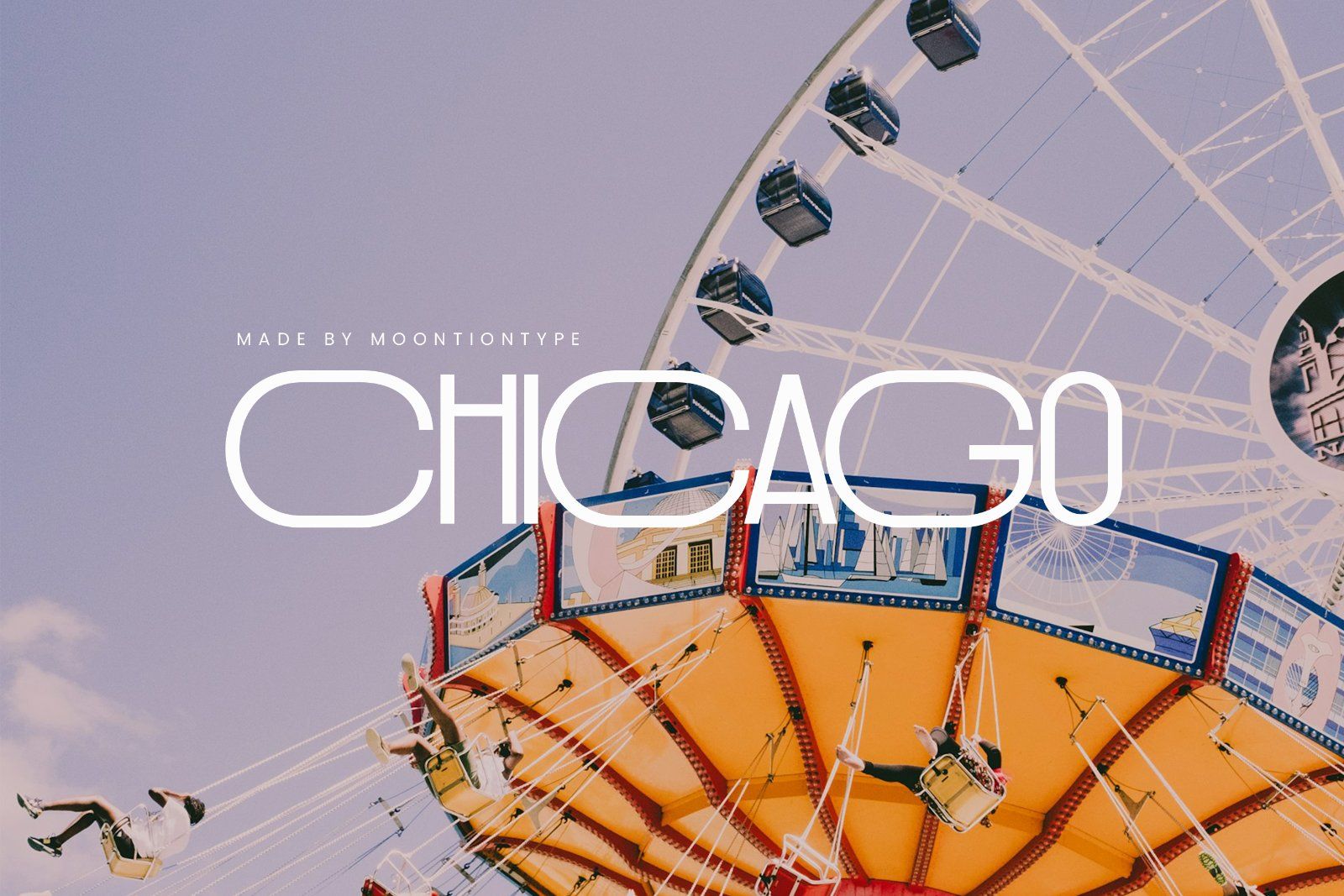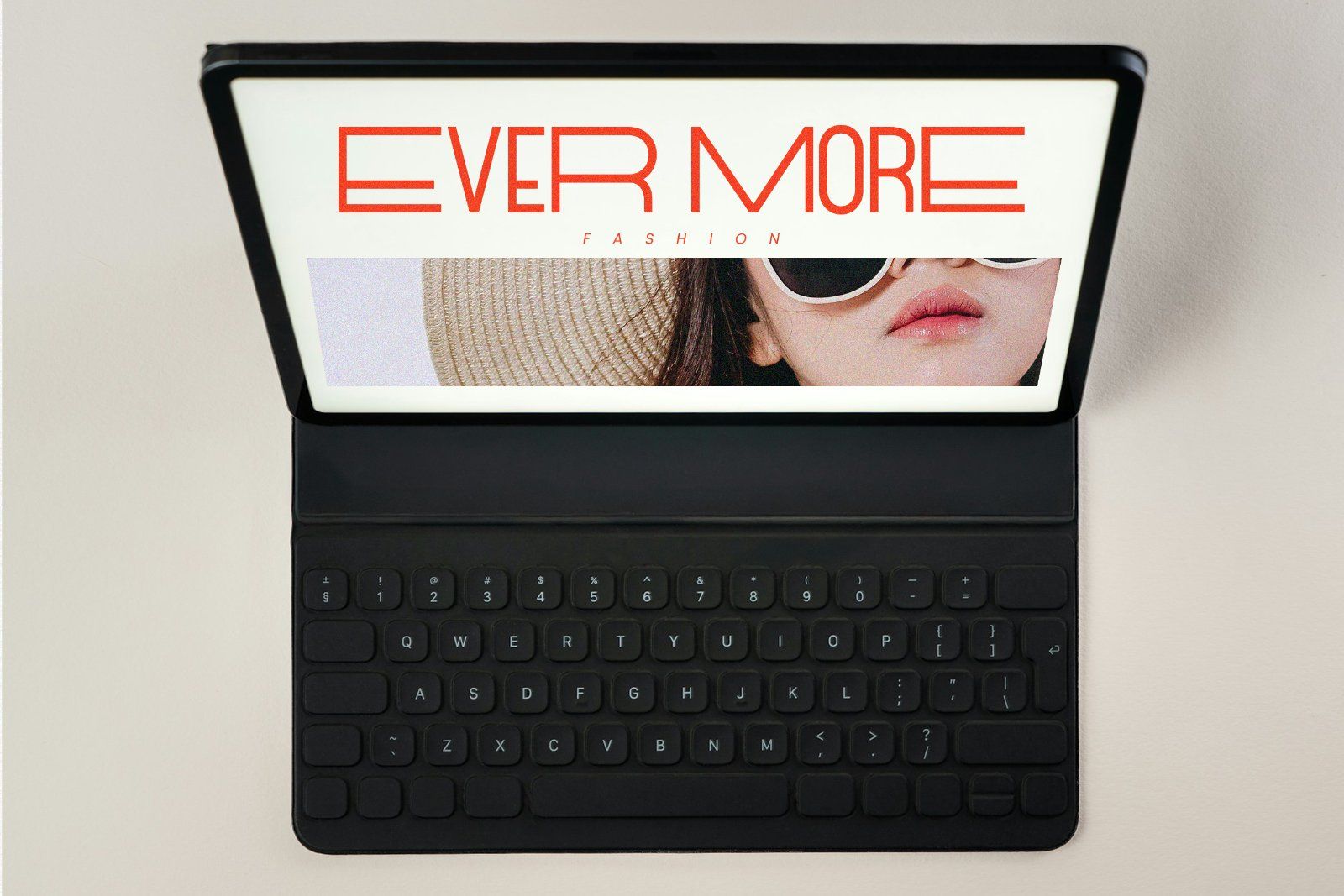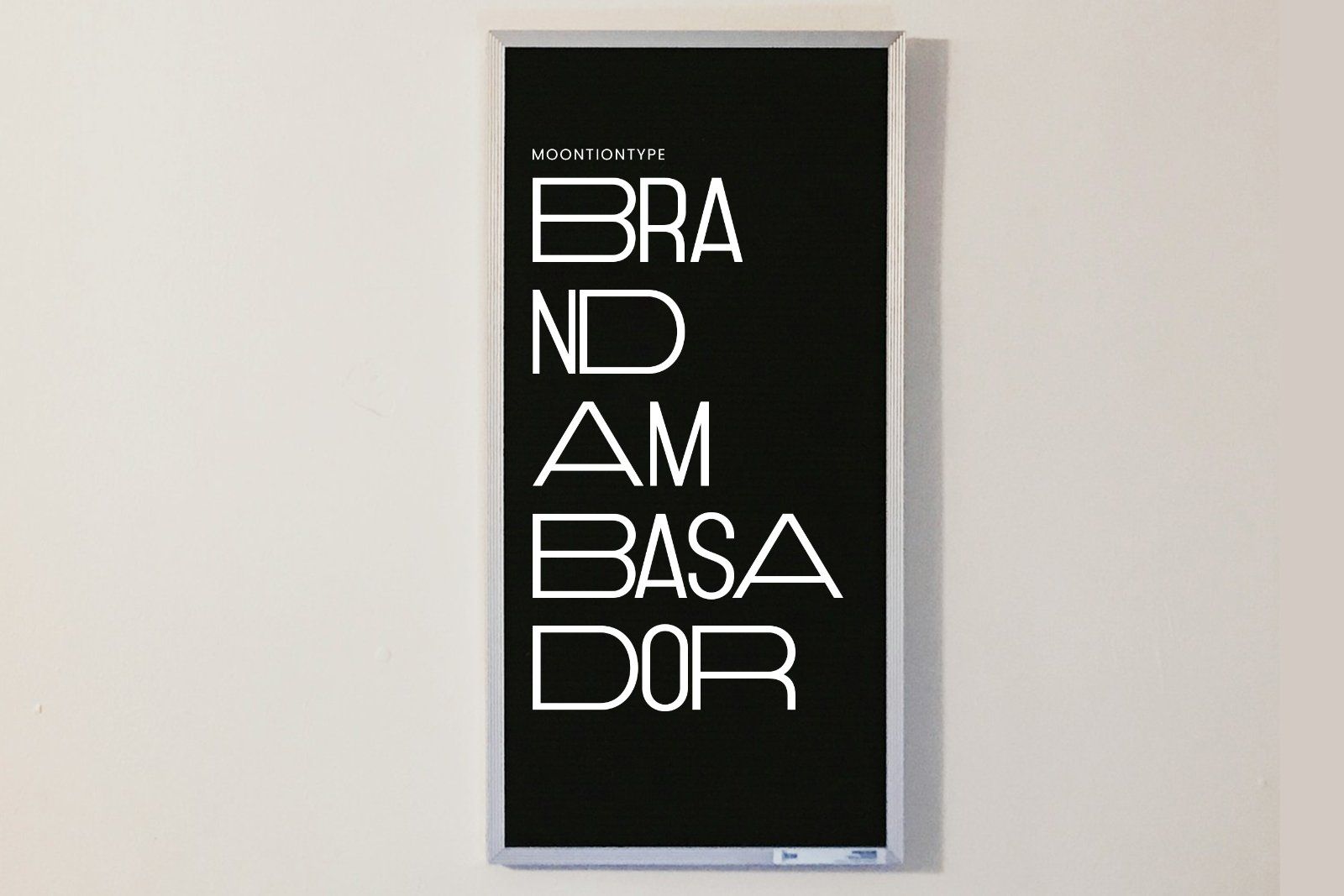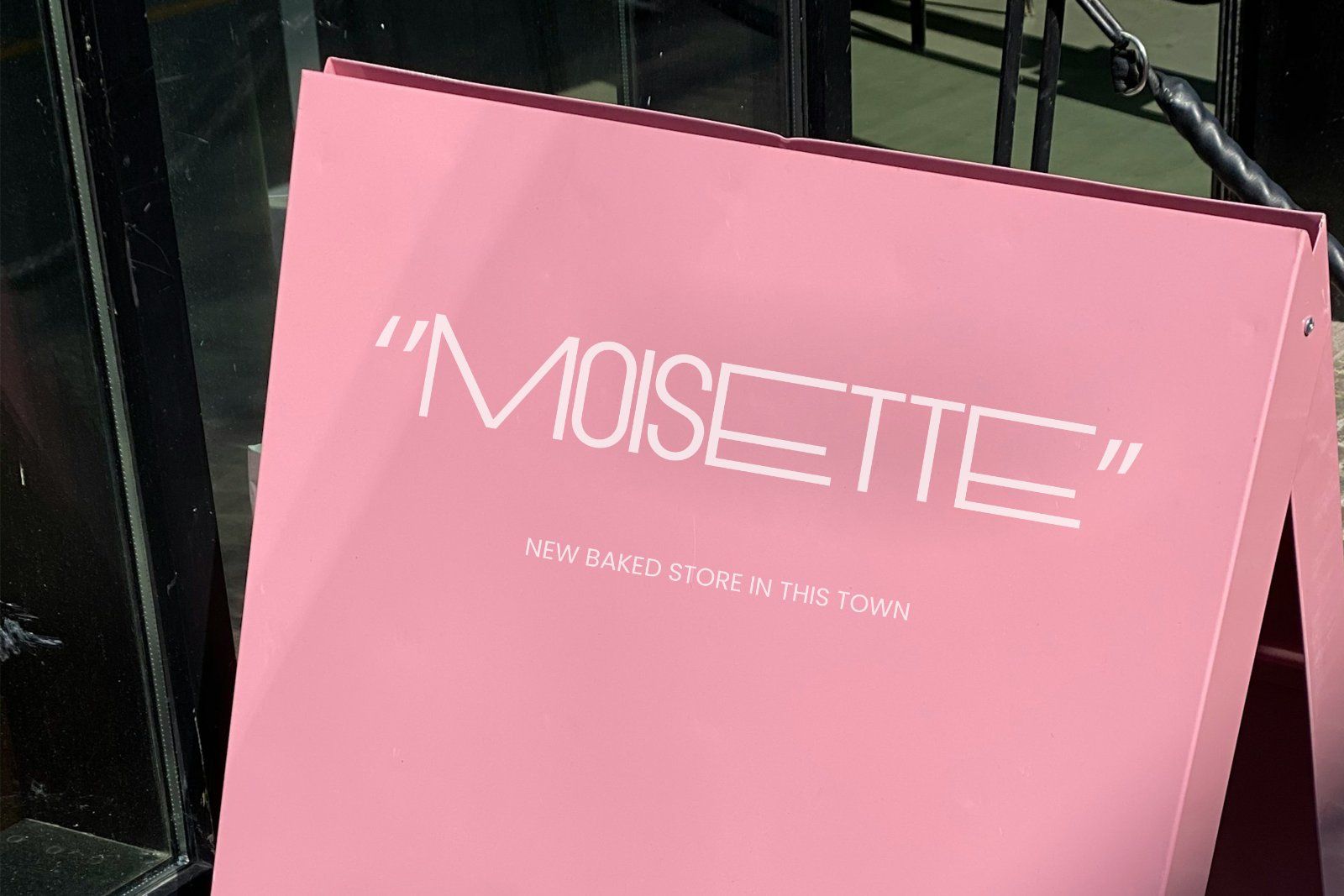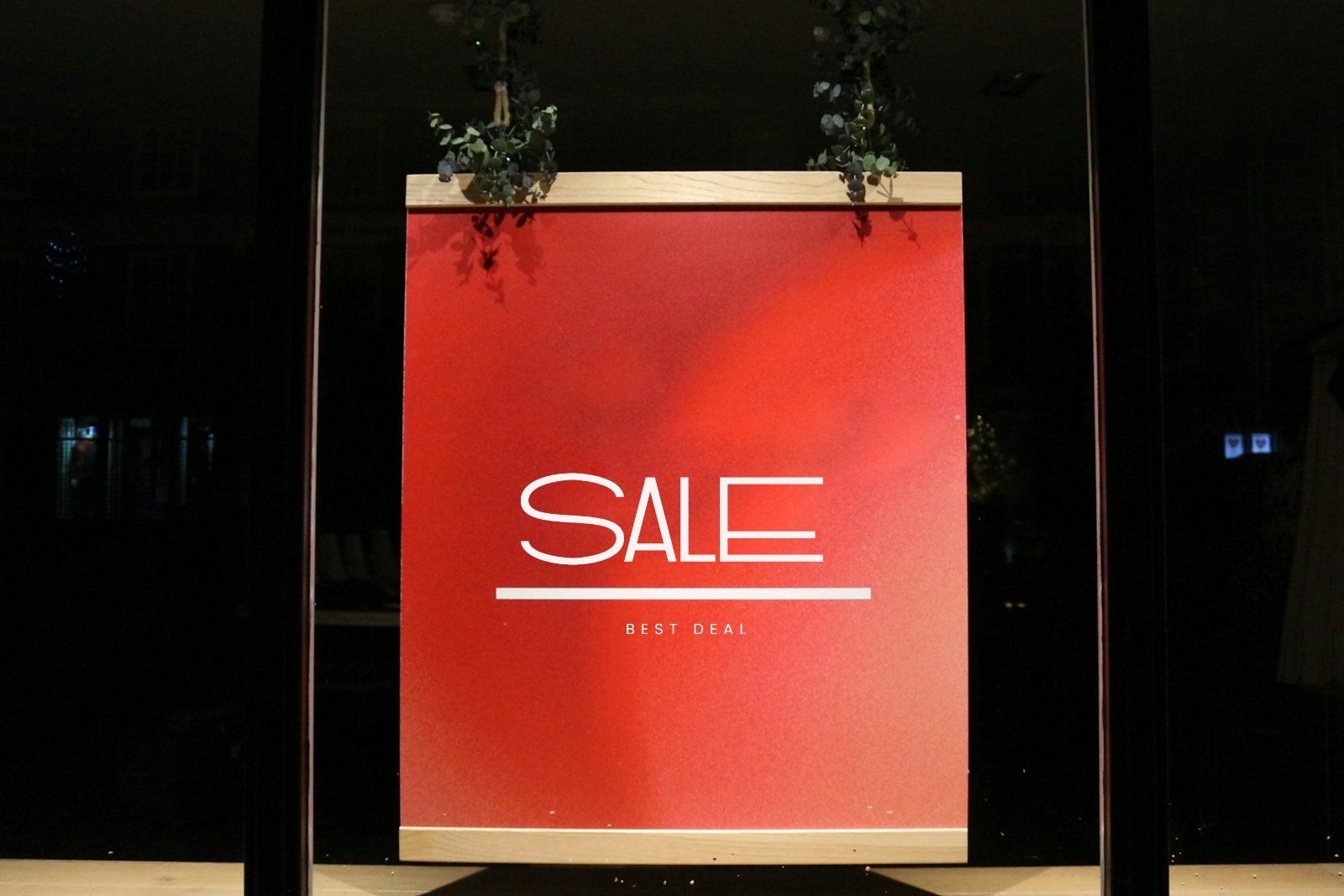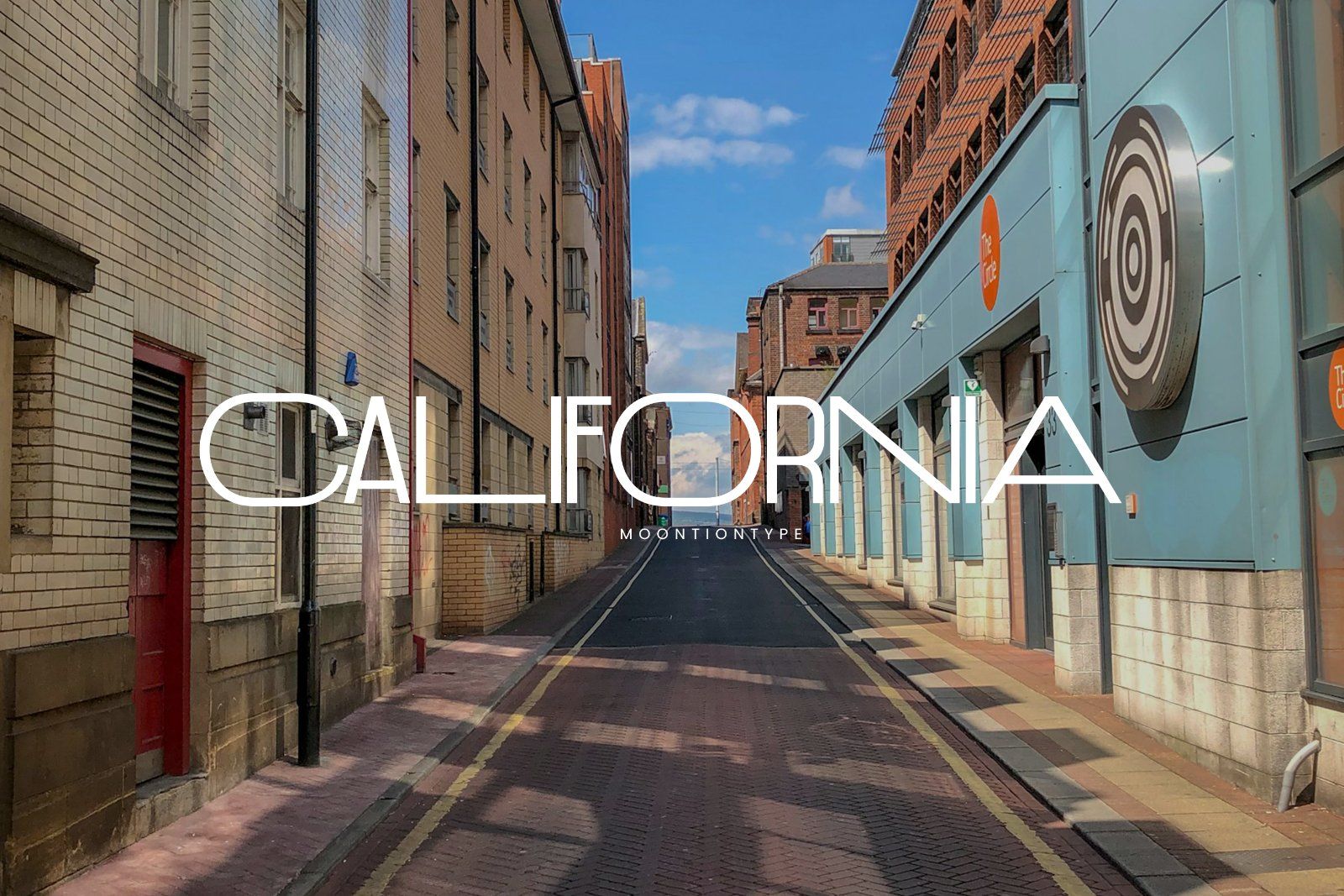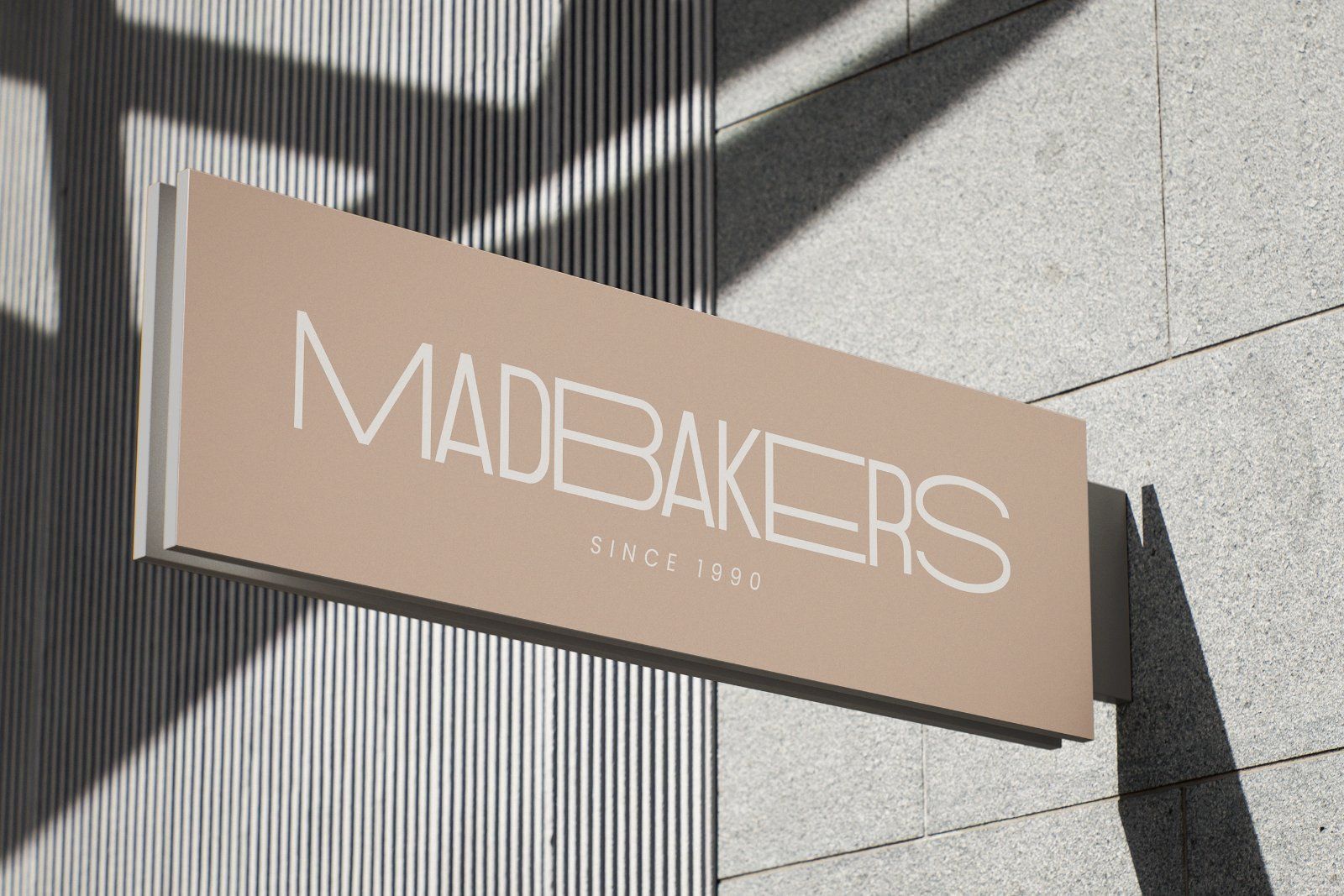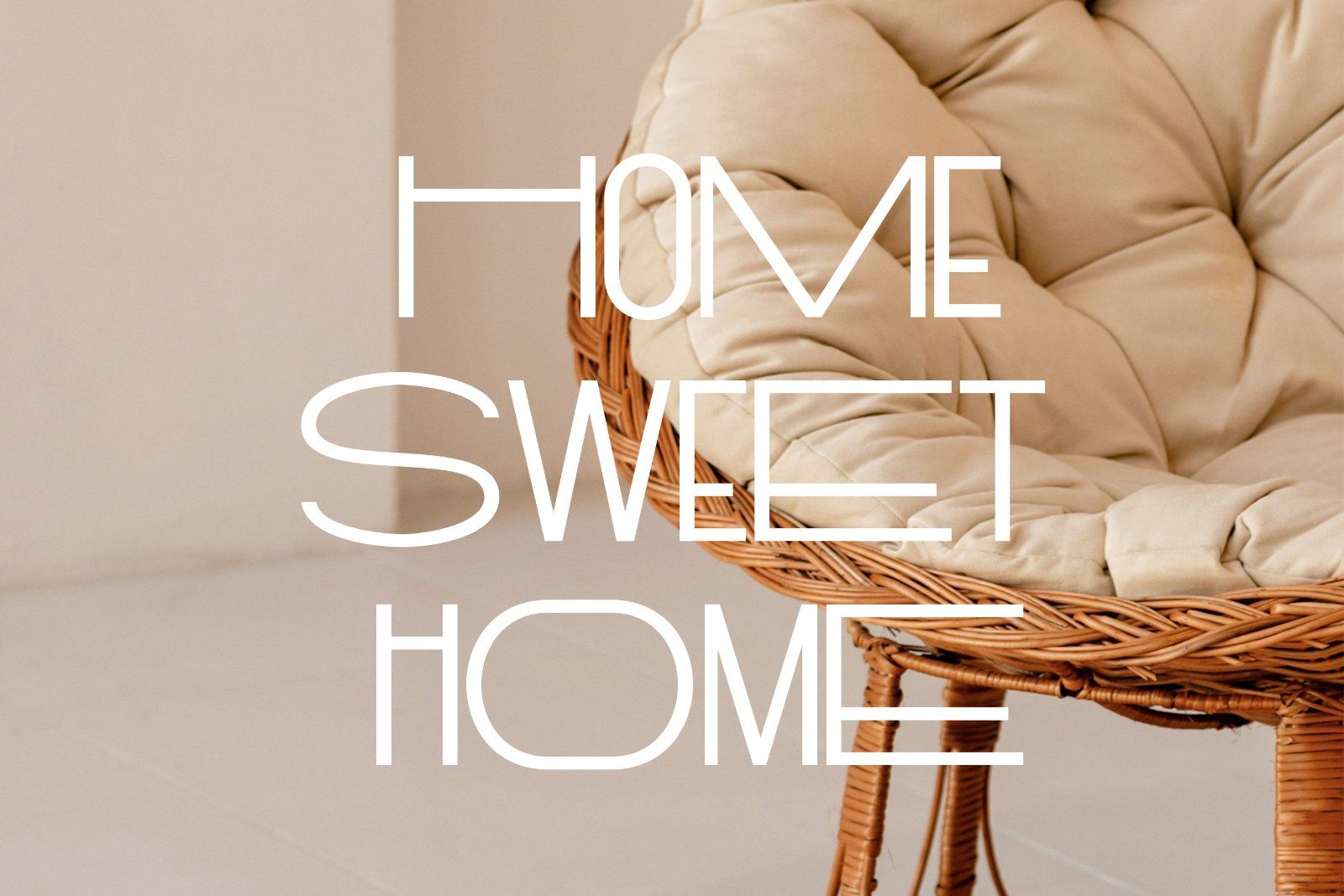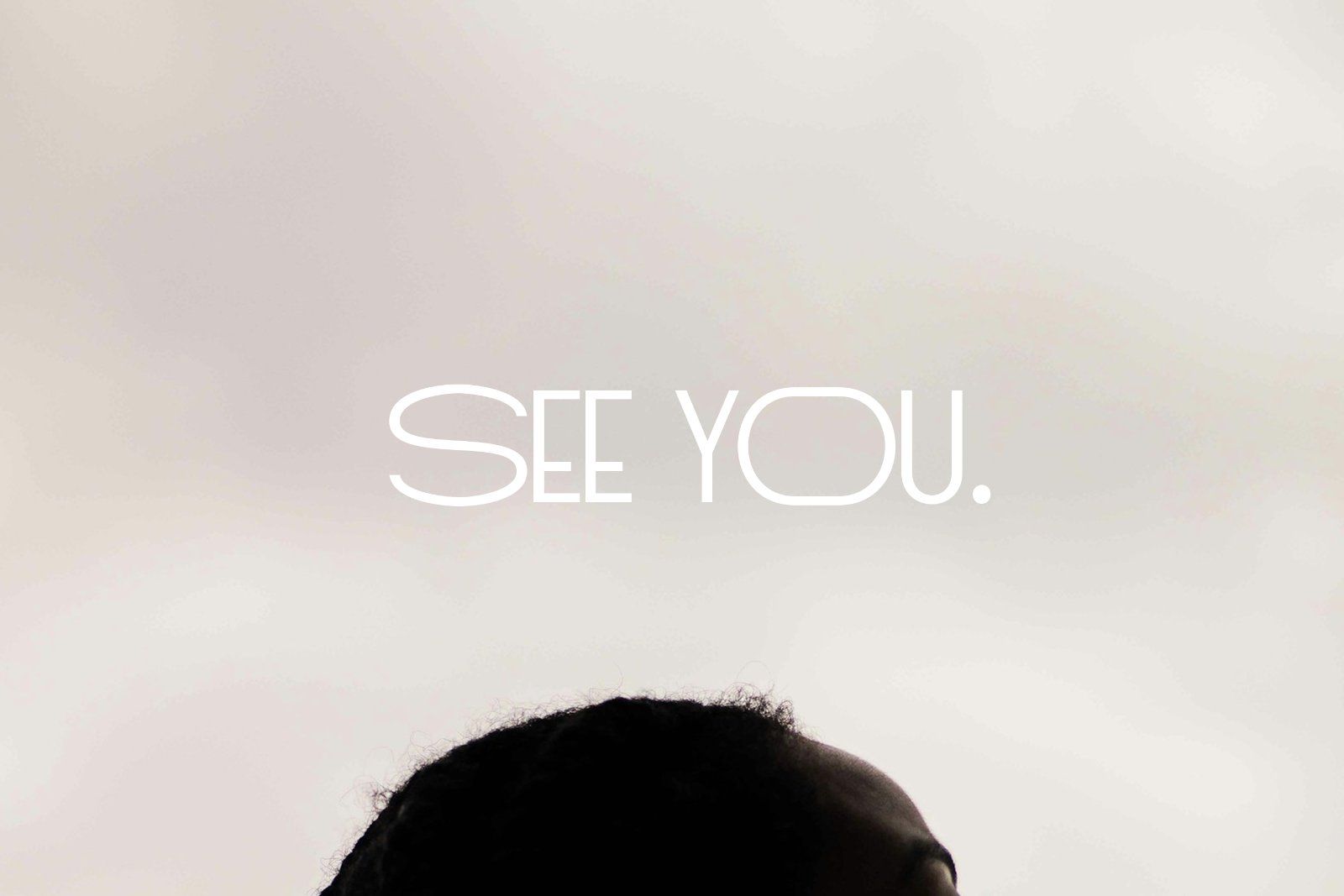
Local Diamond is a modern asymmetrical sans-serif font designed by Moontiontype. It combines clean geometric shapes with unique proportions, creating a fresh, elegant, and distinctive visual character. With its thin lines and bold structure, Local Diamond is perfect for projects that aim for a minimal yet striking look — from branding, posters, and editorials to logo design and packaging.